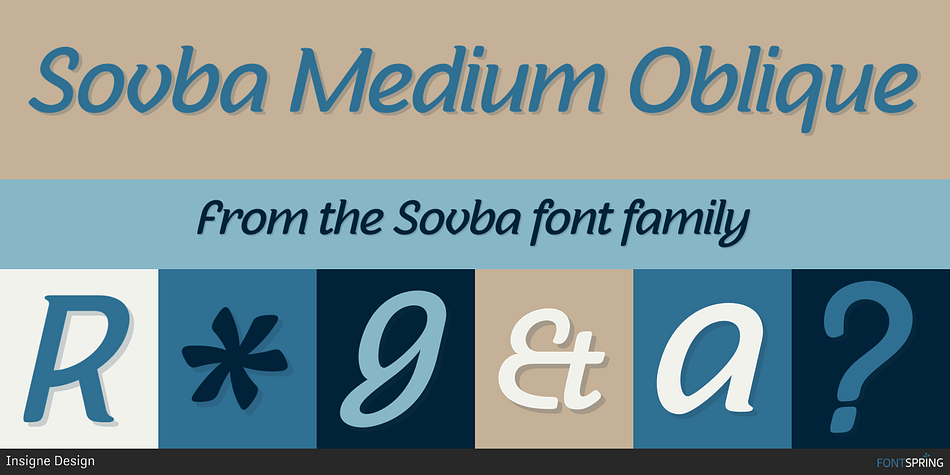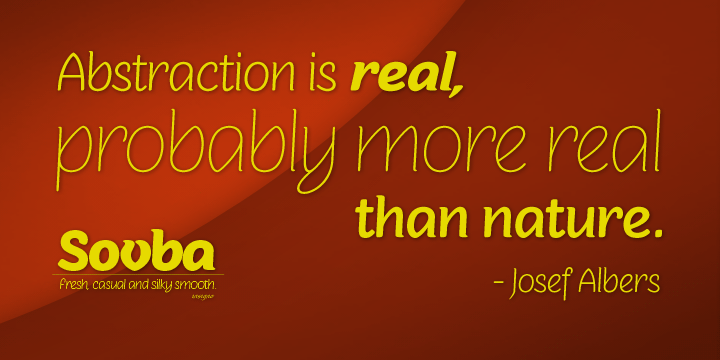
Sovba Medium Oblique
Sovba is a hand drawn font family. This typeface has twelve styles and was published by Insigne Design.
Sovba is an amiable rounded sans-serif inspired by handwriting.
Sovba is an amiable rounded sans-serif inspired by handwriting. Sovba is useful for a look that is uniquely casual, fresh and smooth. Sovba simplifies character forms down to their basic characteristics, and has a strong, silky smooth forward motion.
Sovba includes more traditional optional alternates for a number of characters, including the ‘E’ and ‘F,’ OpenType alternate characters, old style figures and small caps. Sovba is a fine choice when you require a versatile upright oblique for logotypes, headlines or short blocks of text.